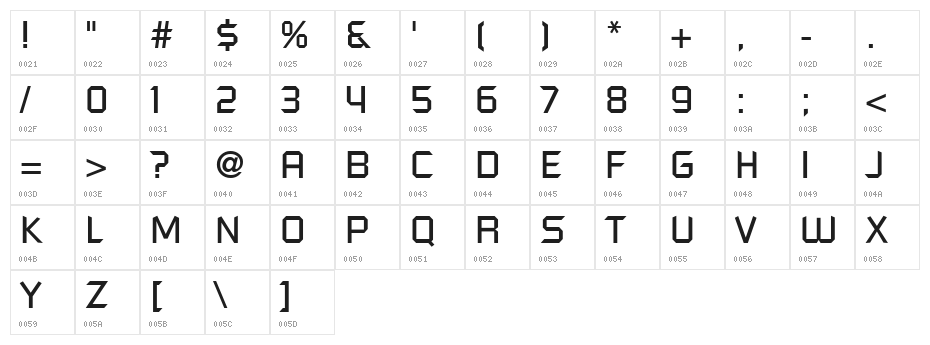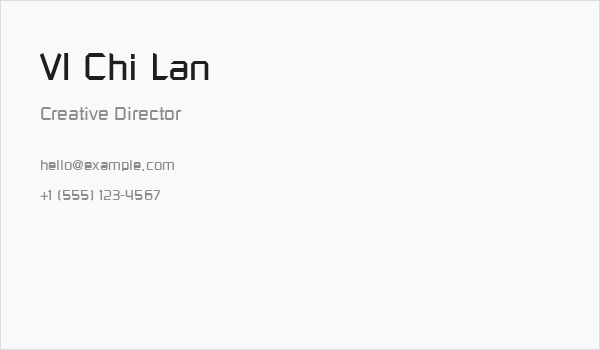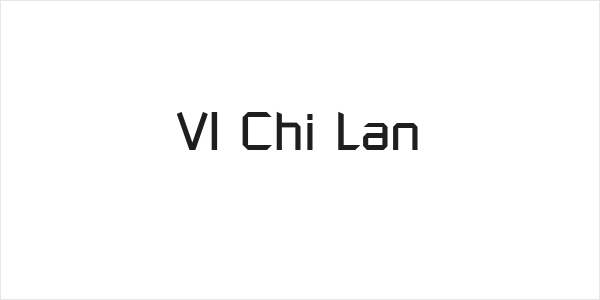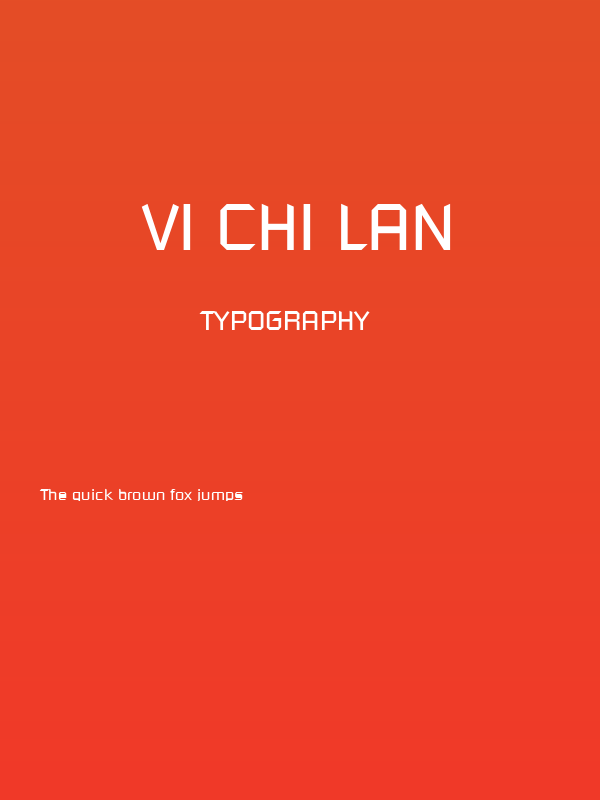
VI Chi Lan Font
VI Chi Lan Description
This font features a geometric and angular design, characterized by its sharp edges and clean lines. The uppercase and lowercase letters maintain a consistent structure, with a modern and futuristic appearance. The numerals are bold and distinct, matching the overall style of the alphabet. Special characters are designed with the same angular precision, ensuring uniformity across all glyphs. The font's design is both functional and stylish, making it suitable for a variety of digital and print applications.
| Use Case | Headlines, Logos, Digital interfaces |
| Proposed Projects | Ideal for technology branding, video game interfaces, and modern advertising campaigns. |